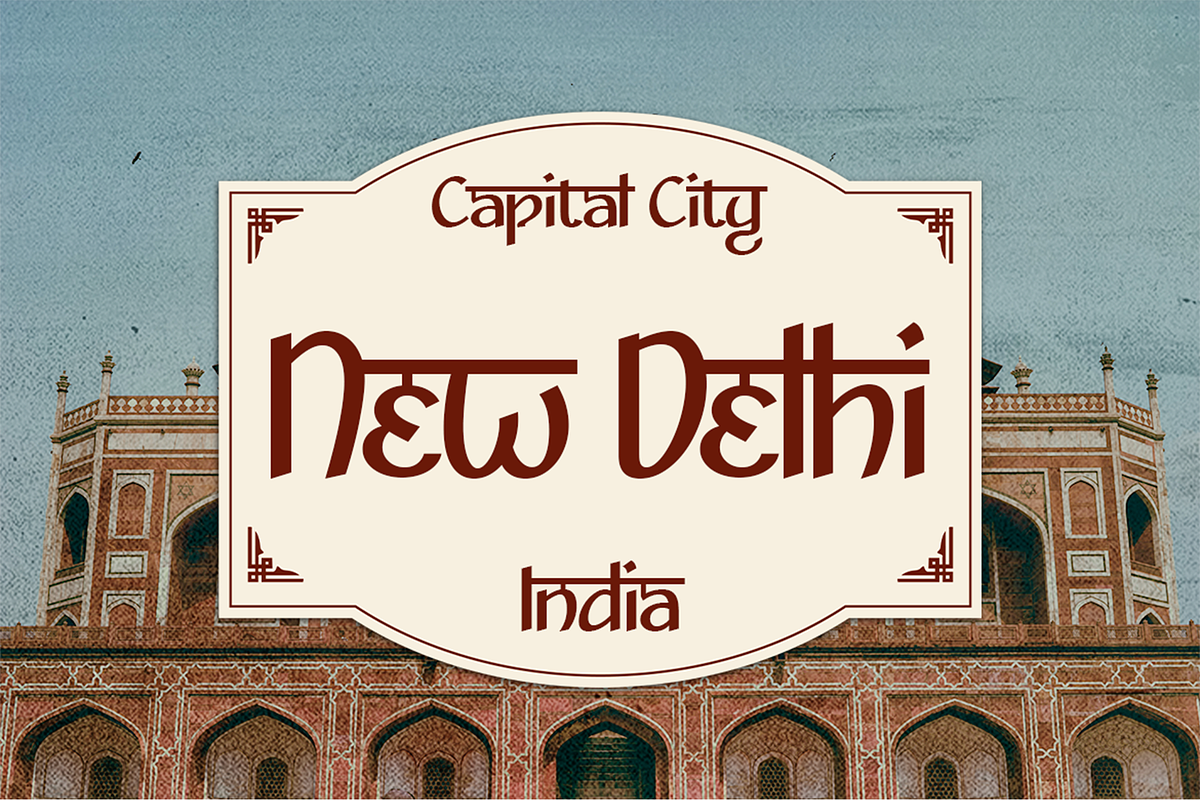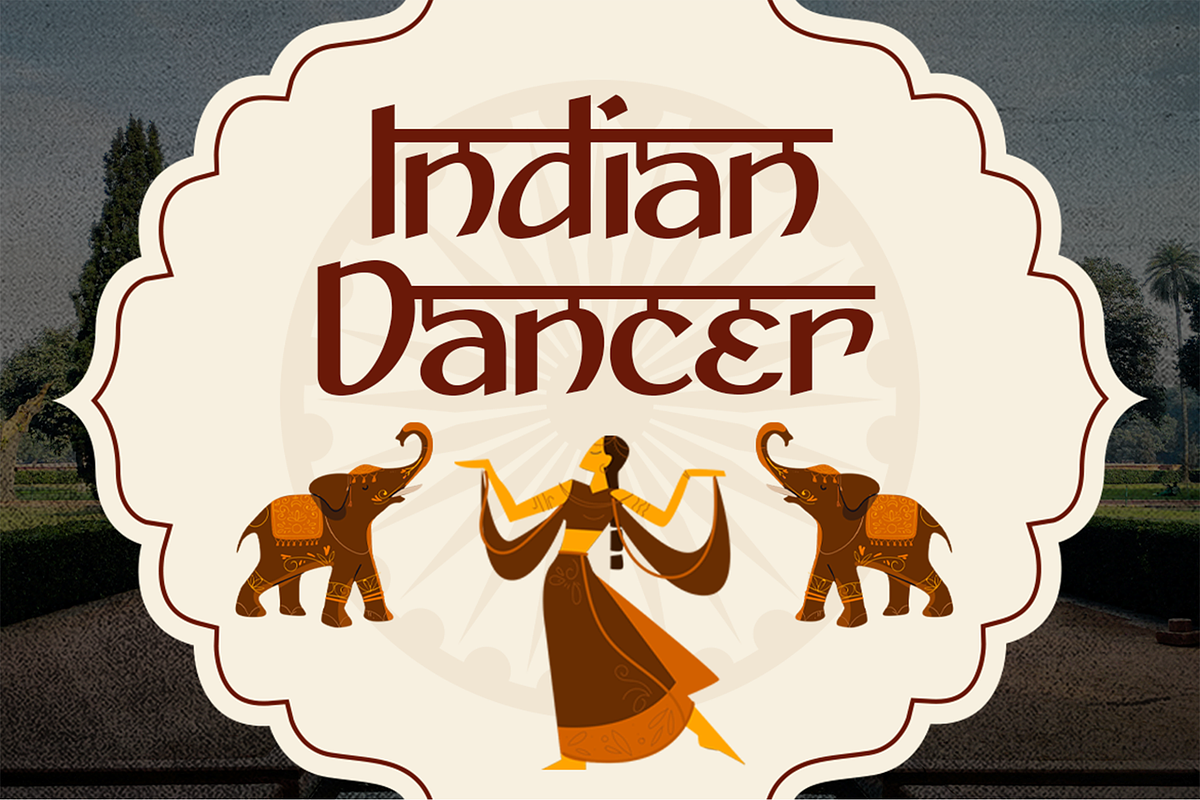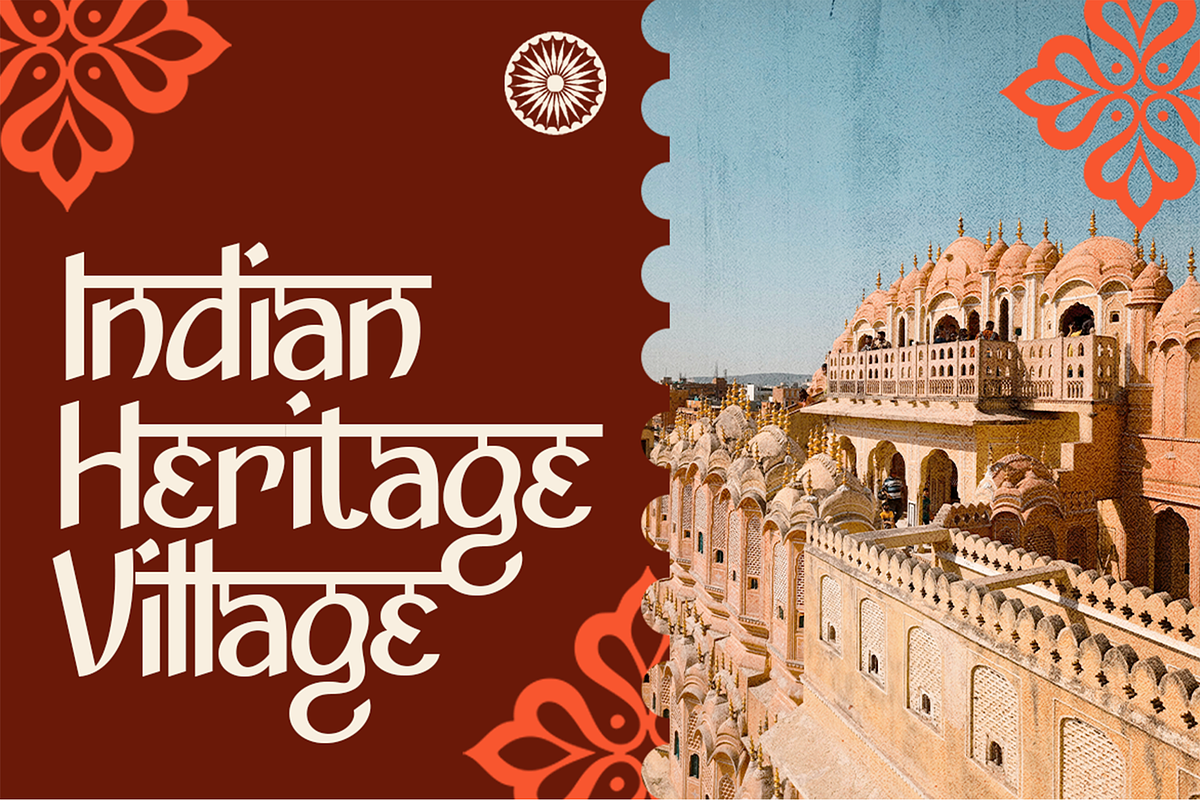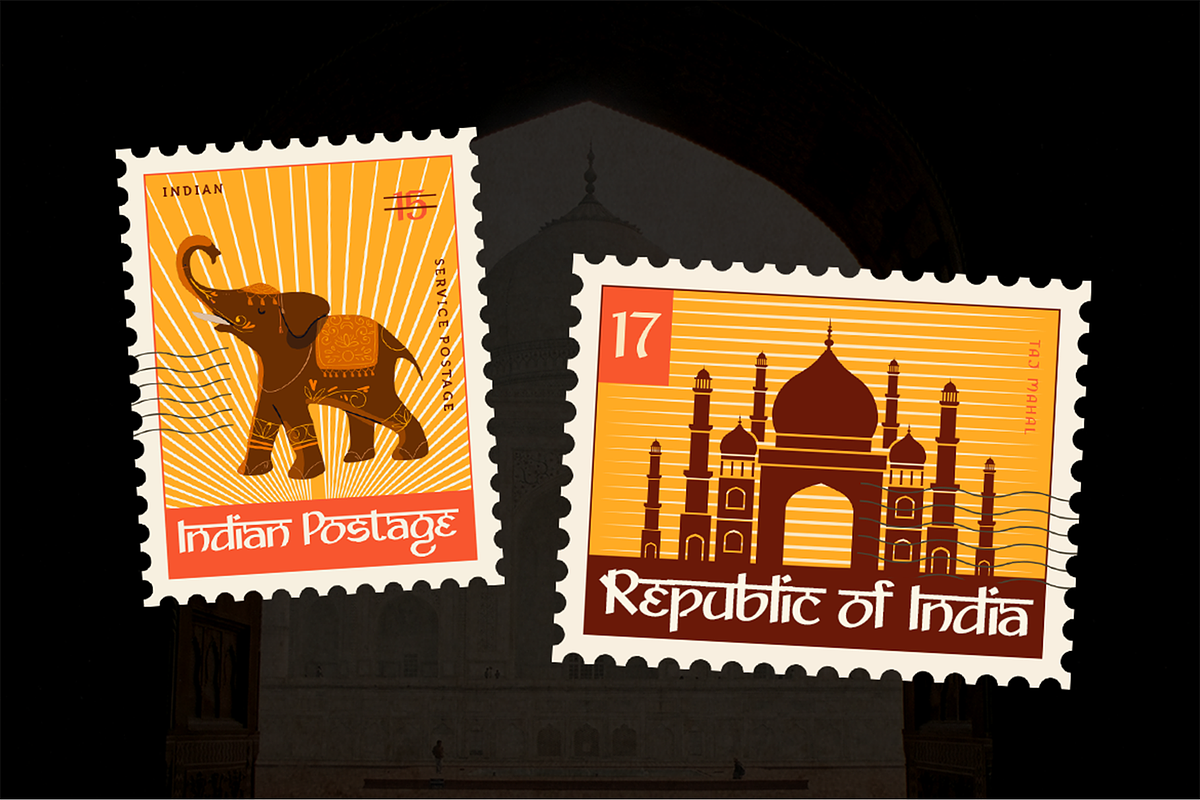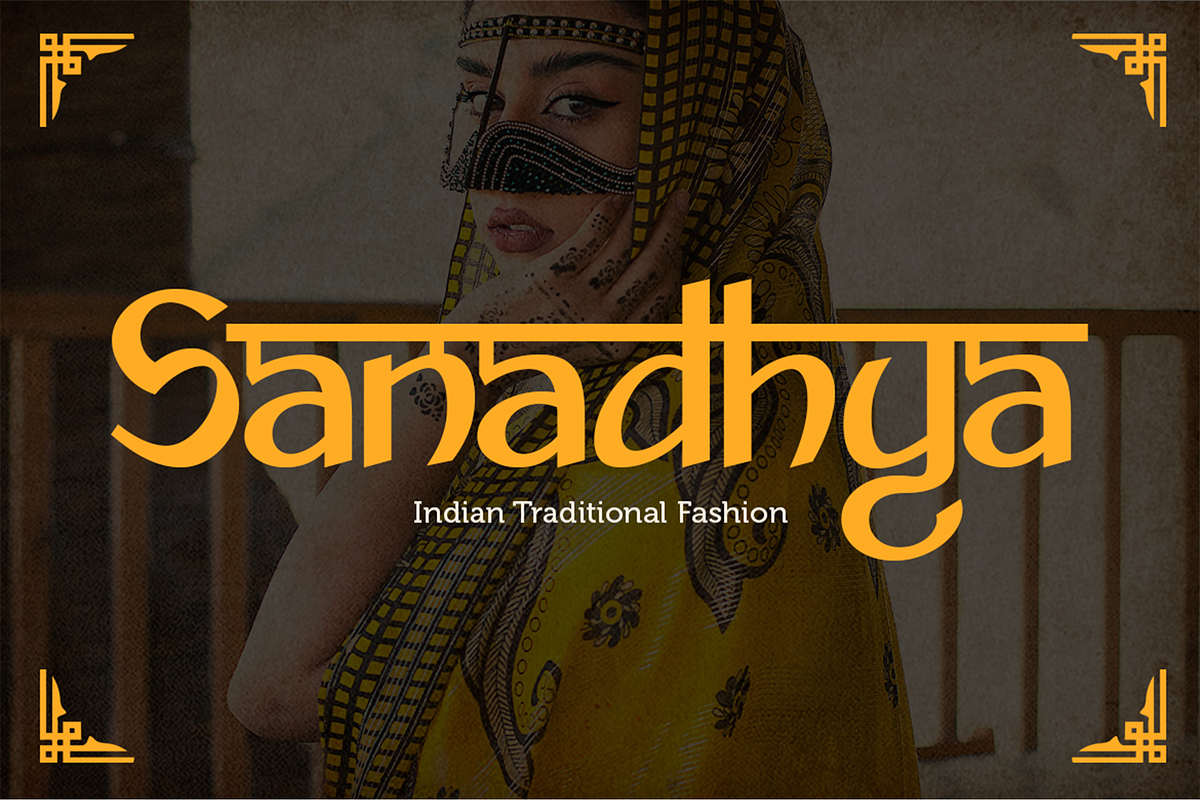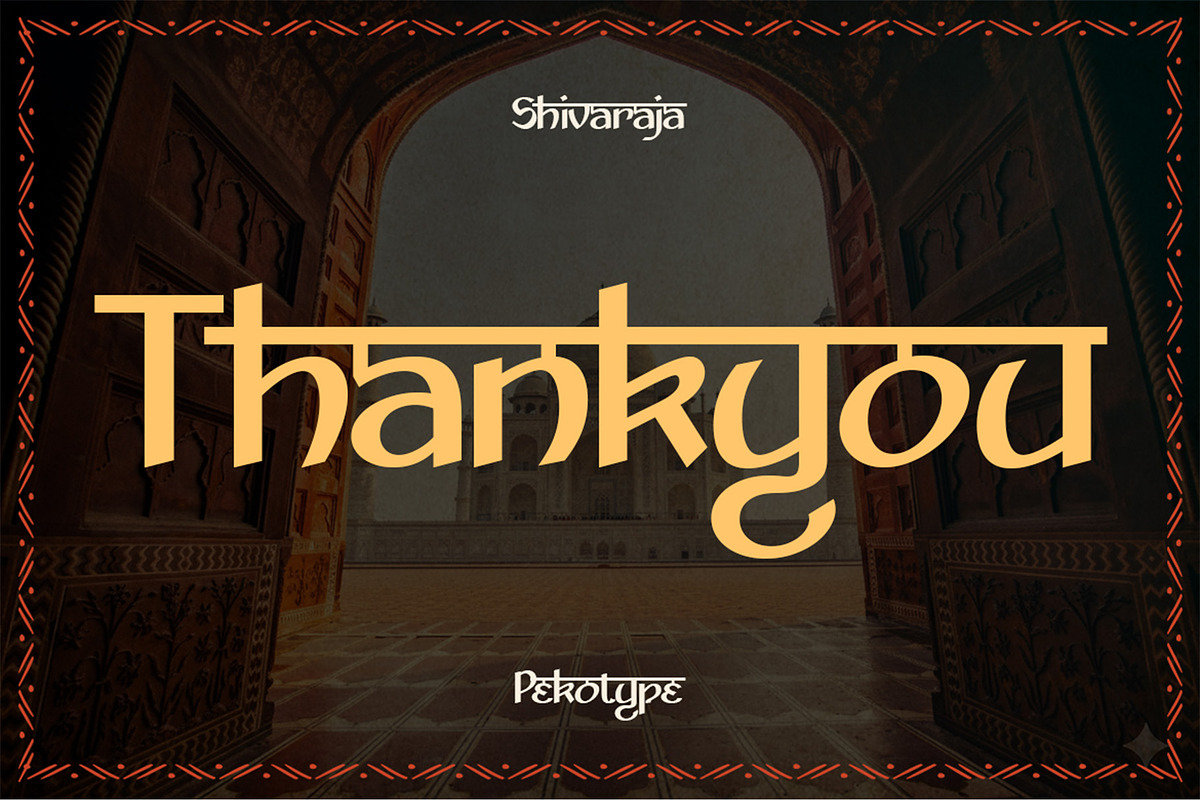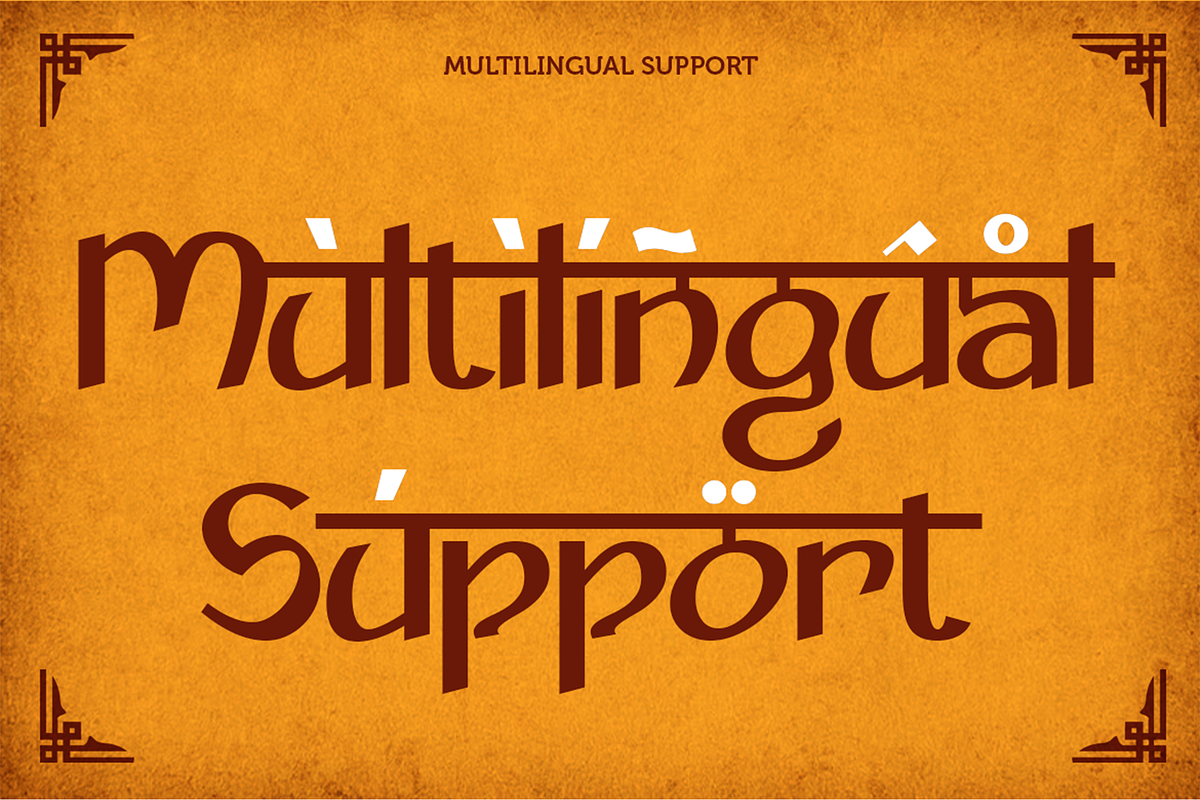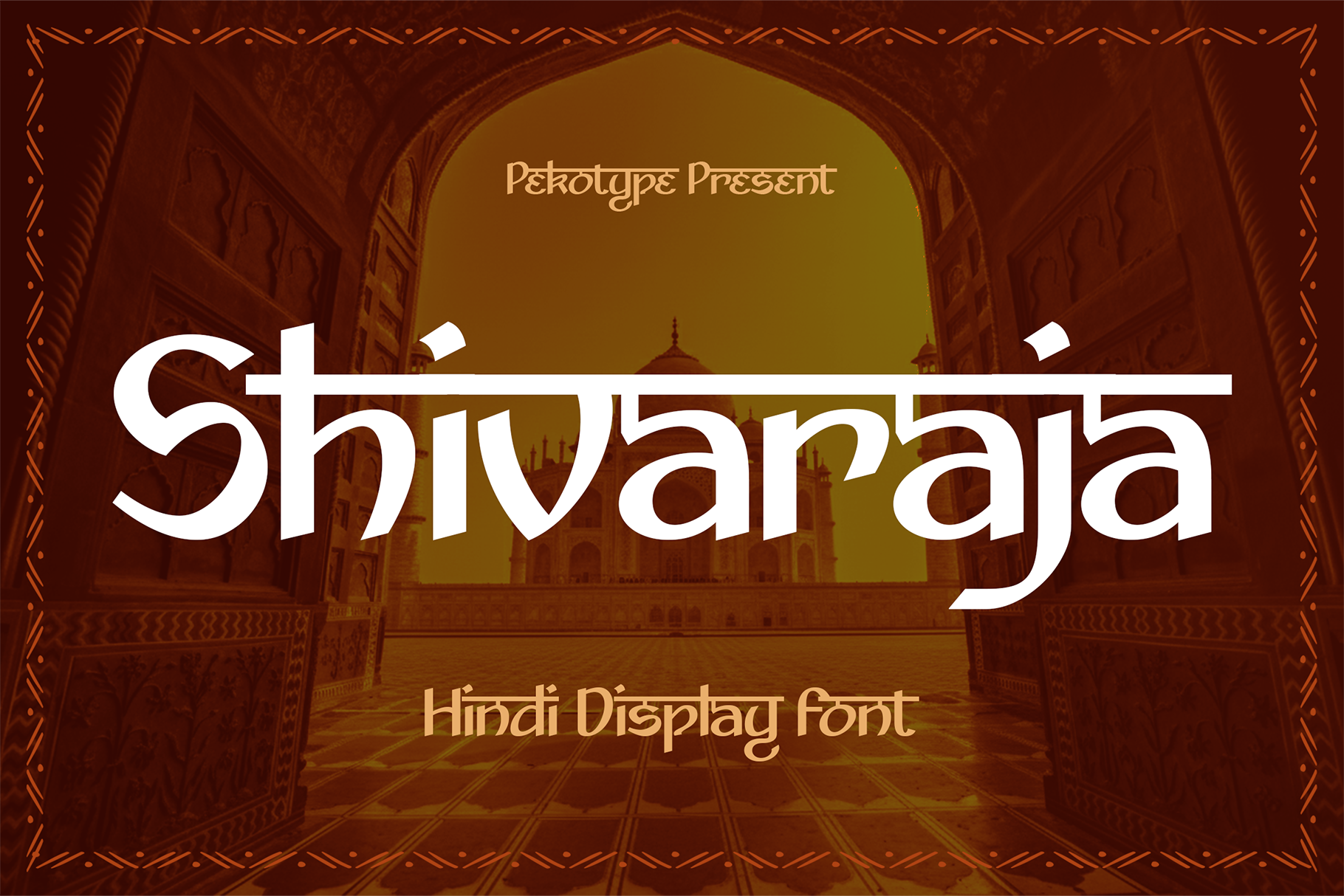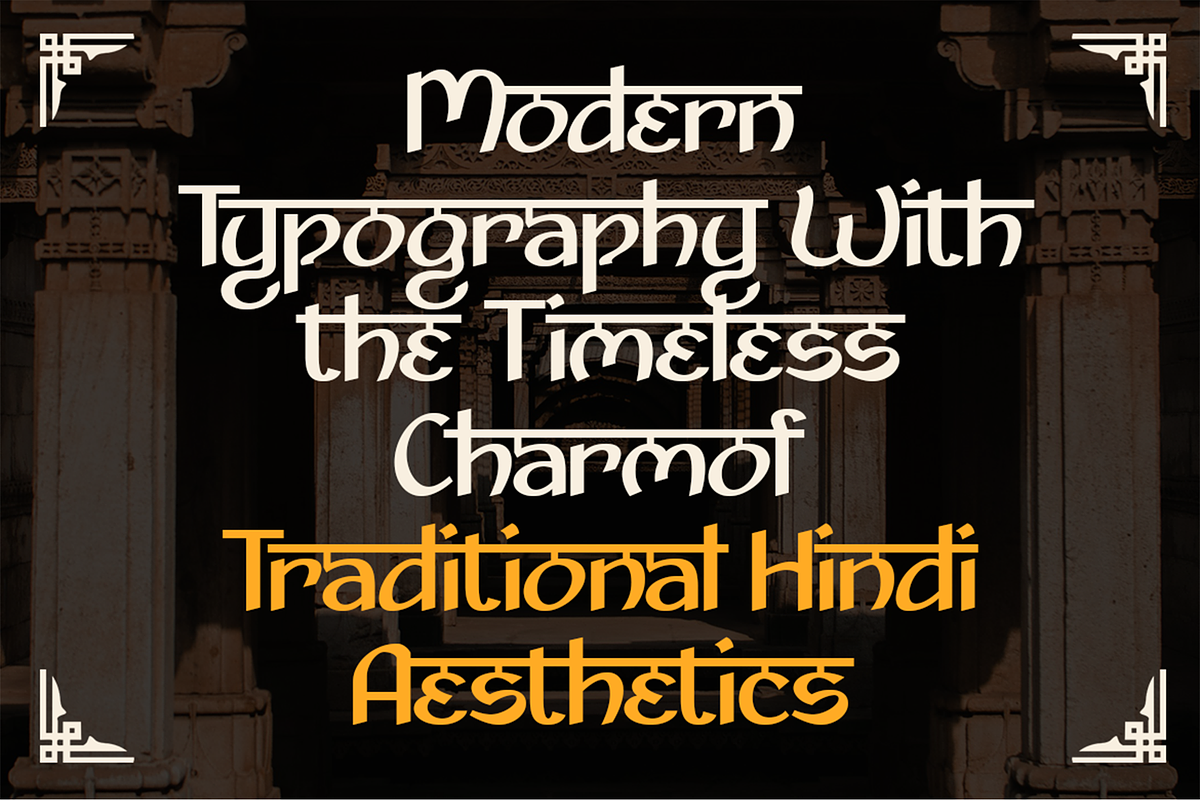
Shivaraja- Modern Hindi Display Font
Shivaraja - Modern Hindi Display Font with Timeless Charm
Introducing Shivaraja, a modern Hindi-inspired display font that blends traditional Indian elegance with contemporary design flair. Crafted with graceful curves, geometric precision, and an unmistakable cultural touch, Shivaraja captures the spirit of India’s artistic heritage while staying modern and versatile.
Perfect for branding, packaging, logos, posters, invitations, and social media, Shivaraja brings warmth, depth, and authenticity to every visual composition. Its balanced uppercase and lowercase set, combined with multilingual support, ensures smooth adaptability for diverse creative projects across global markets.
Whether you're designing for a restaurant identity, travel campaign, cultural event, or spiritual product, Shivaraja delivers a sophisticated yet approachable look that resonates with heritage and style.
Bring a timeless touch to your design with Shivaraja — where modern typography meets traditional soul.
- Number, Symbol, & Punctuation